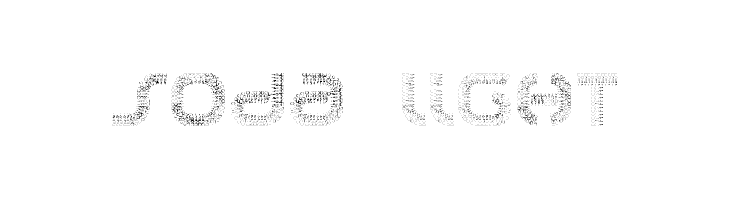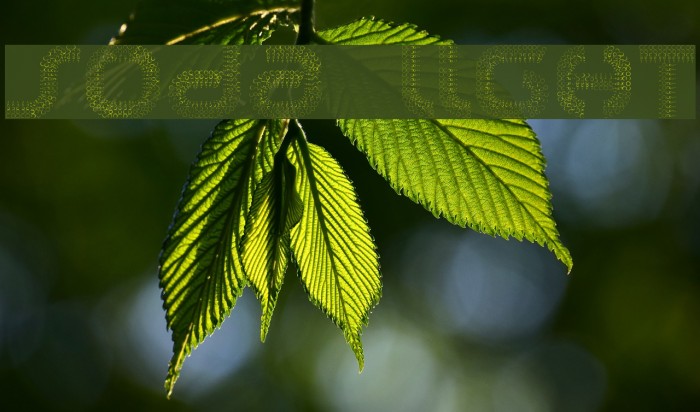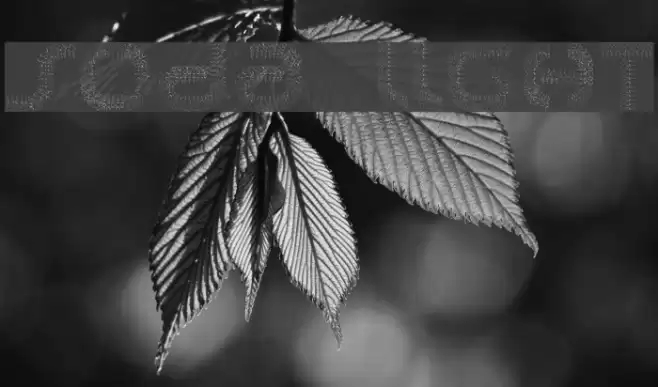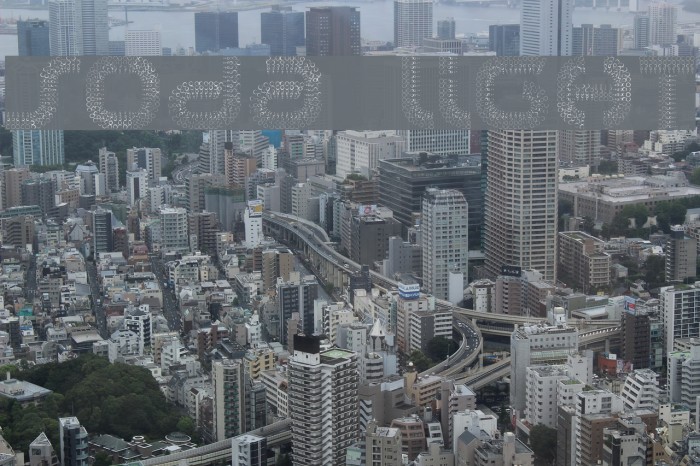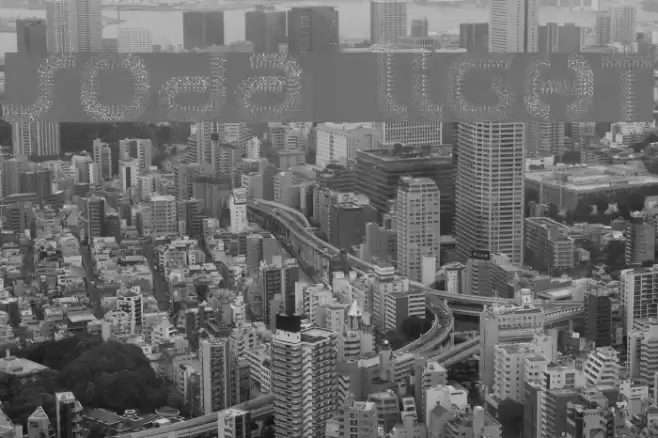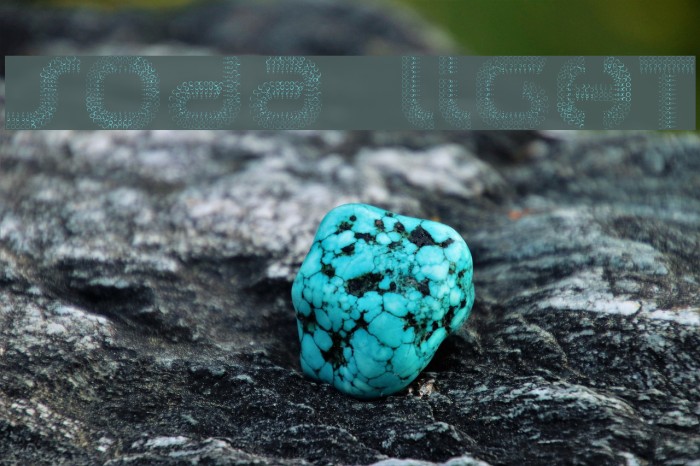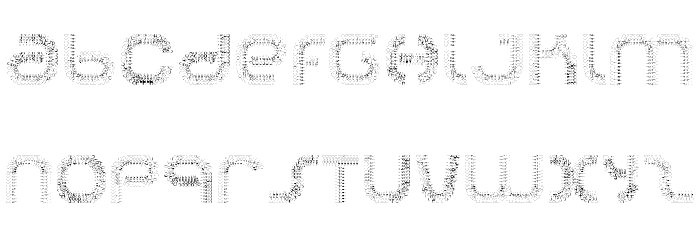
soda light Font
soda light Description
This font features a unique, pixelated design that gives it a digital, modern appearance. Each character is composed of small, dot-like elements that form the overall shape of the letters and numbers. The style is consistent across uppercase, lowercase, and numeric characters, maintaining a cohesive look. The font's structure is geometric, with rounded edges that soften the pixelated effect. This creates a balance between a futuristic and playful aesthetic. The special characters are also designed with the same pixelated style, ensuring uniformity throughout the set.
| Use Case | Logos, Headlines, Digital Art |
| Proposed Projects | Ideal for digital art projects, tech-themed designs, video game interfaces, and creative posters. |